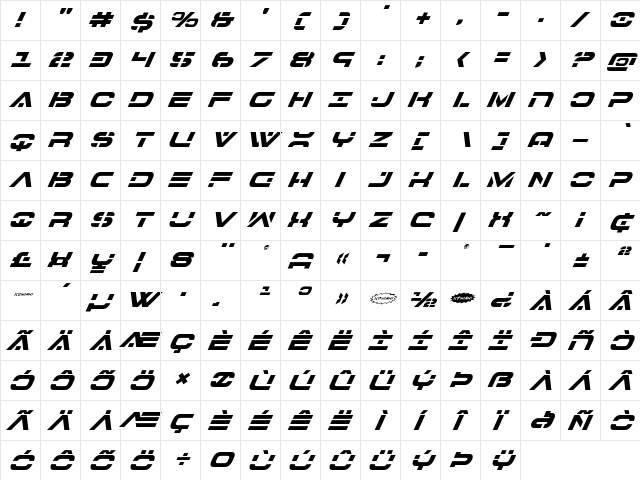
7th Service Super-Italic Italic Font Preview
7th Service Super-Italic Italic
Design Context for 7th Service Super-Italic Typeface
7th Service Super-Italic takes a measured approach to typography — its balanced proportions and neutral character make it a reliable workhorse for both digital and print work. The dynamic lean of this cut emphasises speed and emphasis in any layout.
Pro Tip: Use 7th Service Super-Italic for emphasis, pull quotes, and subheadings where its slanted energy can add rhythm to the layout.